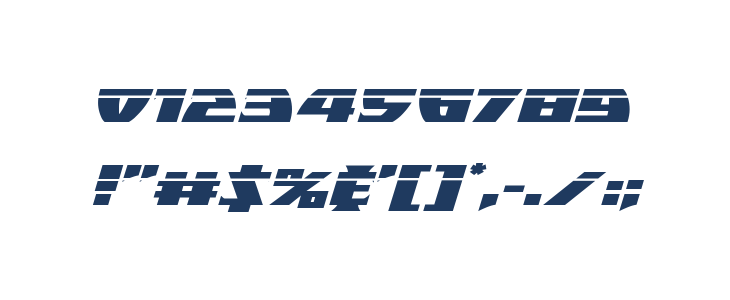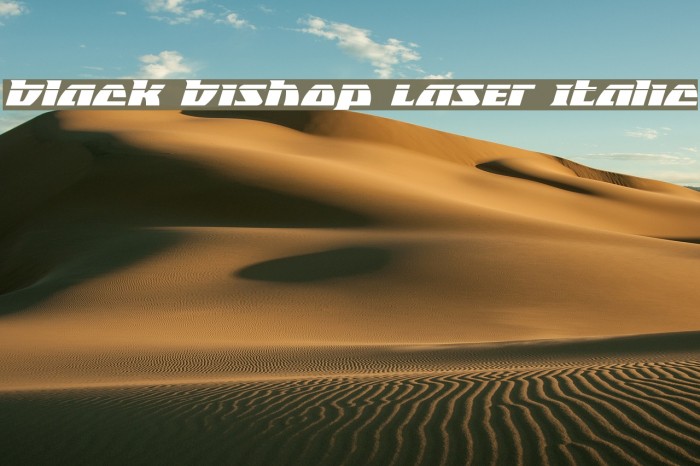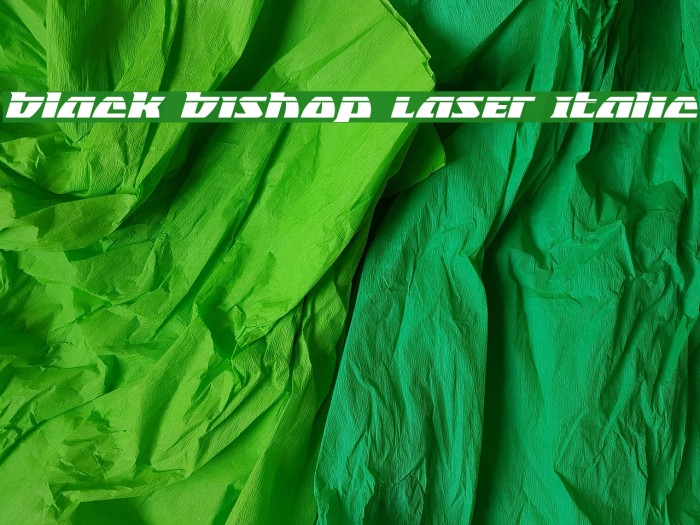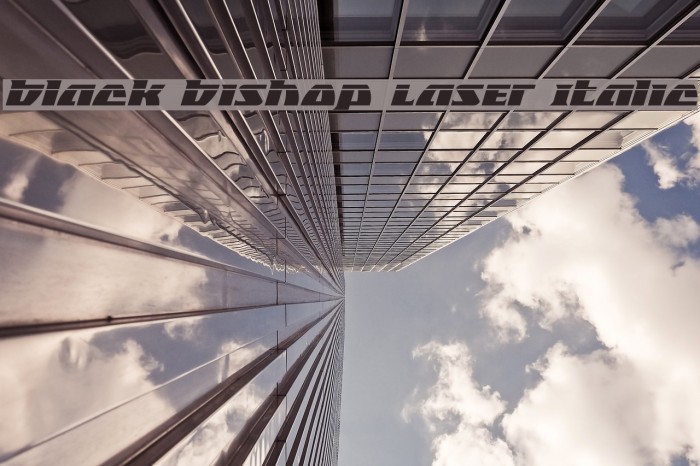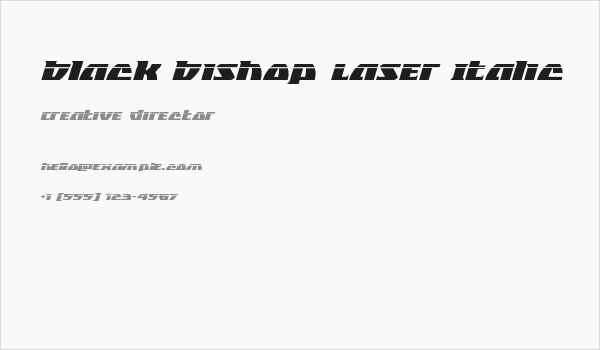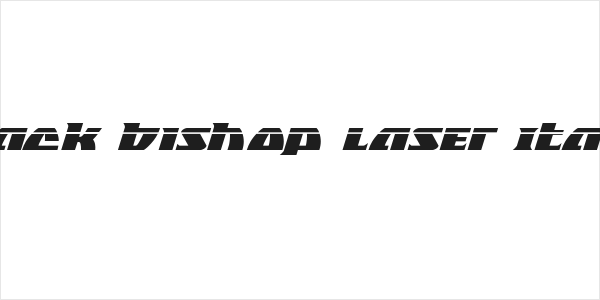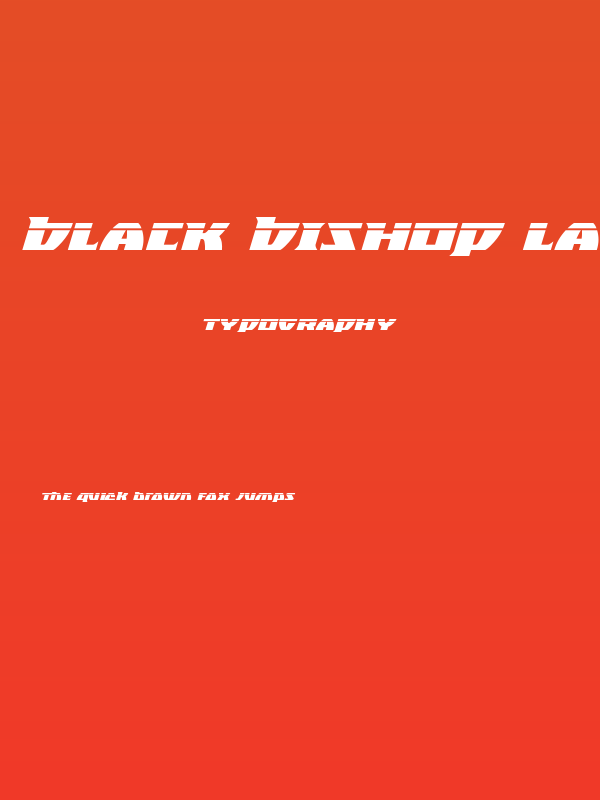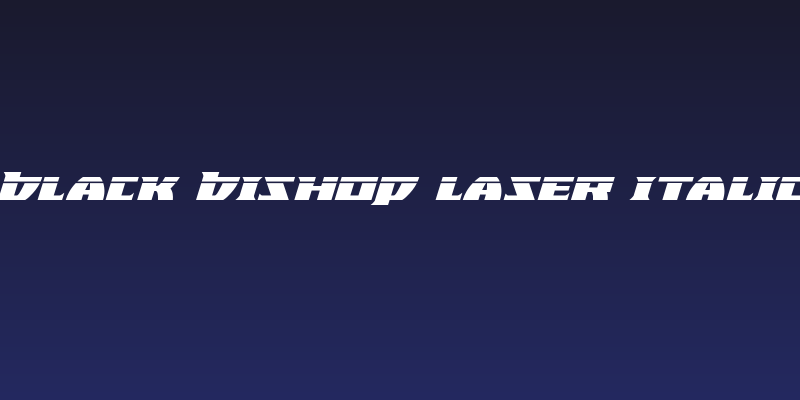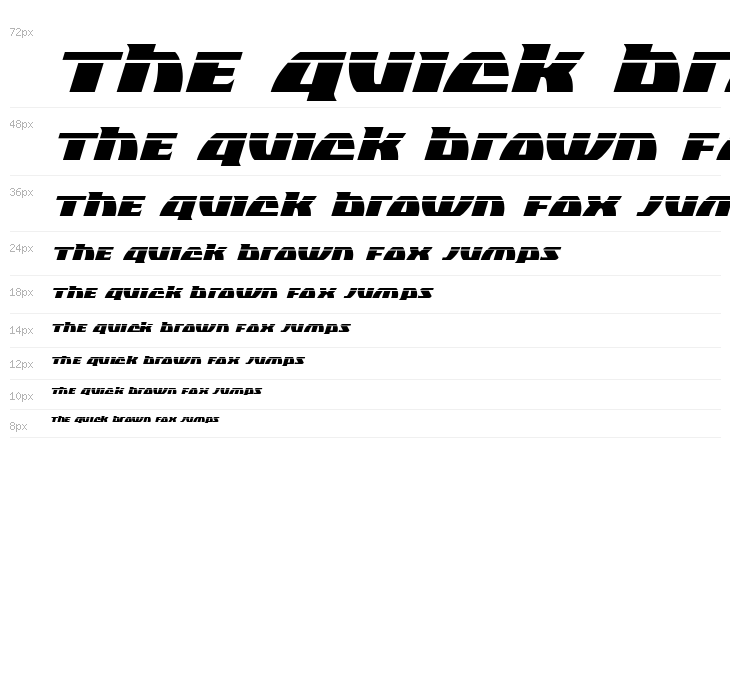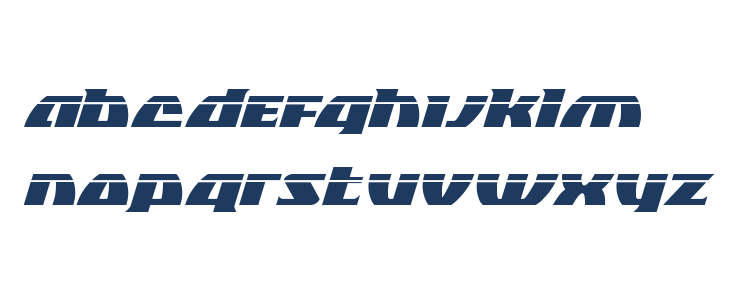
Black Bishop Laser Italic Font
Black Bishop Laser Italic Description
This font features a bold and futuristic design with sharp, angular edges and a distinct slant, giving it a dynamic and forward-moving appearance. The characters are tightly spaced, enhancing the compact and aggressive look. The uppercase and lowercase letters maintain a consistent style, with the uppercase being slightly more pronounced. Numbers and special characters follow the same angular and bold design, ensuring uniformity across all elements. The overall aesthetic is modern and edgy, suitable for projects that require a strong visual impact.